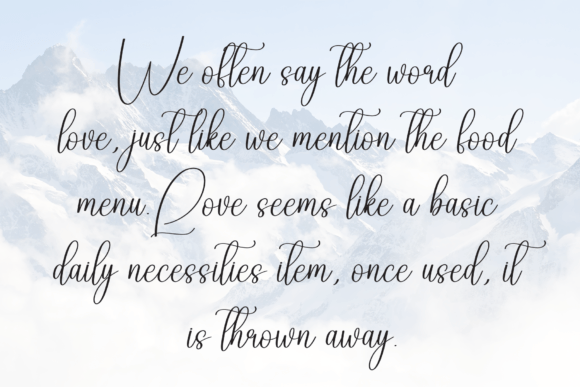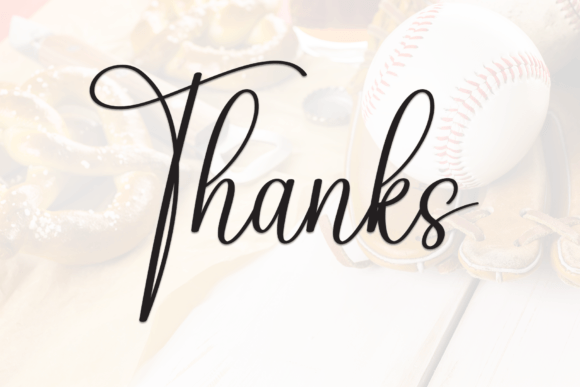
Introduction to Baseball Saturday Font
Remember the moment when you stumbled upon the perfect design resource for your creative project? The feeling of excitement and relief when everything comes together? That’s what I’m about to share with you – a treasure trove of creativity in the form of the Baseball Saturday Font.
This sweet and friendly handwritten font is a game-changer for designers, offering a unique style that’s both natural and captivating. With a transparent background and high-quality design, it’s the perfect addition to any project. Whether you’re working on a personal or commercial project, Baseball Saturday Font is sure to bring a touch of warmth and personality to your design.
Key Features of Baseball Saturday Font
- Unique Hand-Drawn Design: This font features a distinctive, hand-drawn style perfect for creative projects that require a personal touch.
- Perfect for Baseball and Sports-Themed Projects: The font’s unique design and high-quality vectors make it an excellent choice for baseball and sports-themed projects, as well as other creative projects that require a bold, eye-catching font.
Honest Review: Baseball Saturday Font
I recently came across the Baseball Saturday Font, and I was excited to dive in and see what it had to offer. As a designer, I’m always on the lookout for high-quality resources to elevate my creative projects. This font definitely caught my eye with its unique, sporty vibe.
- ✨ High-quality design that’s perfect for sports-themed projects
However, I did encounter a few limitations when using the Baseball Saturday Font. These include:
- ⚠️ Limited character set, making it difficult to use for longer blocks of text
- ⚠️ Not suitable for formal or professional projects, due to its casual, sporty design
Overall, I think the Baseball Saturday Font is a great addition to any designer’s toolkit, especially for sports-themed projects. While it has its limitations, it’s a high-quality resource that’s perfect for creative projects that need a little extra flair.
Use Baseball Saturday Font for creative projects, such as event invitations, posters, and social media graphics.